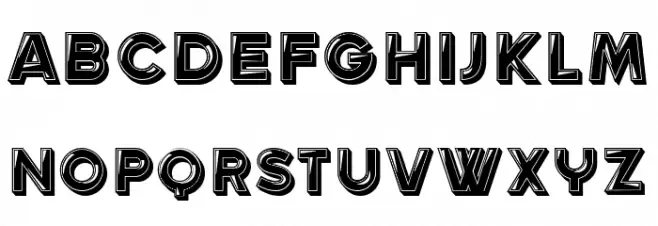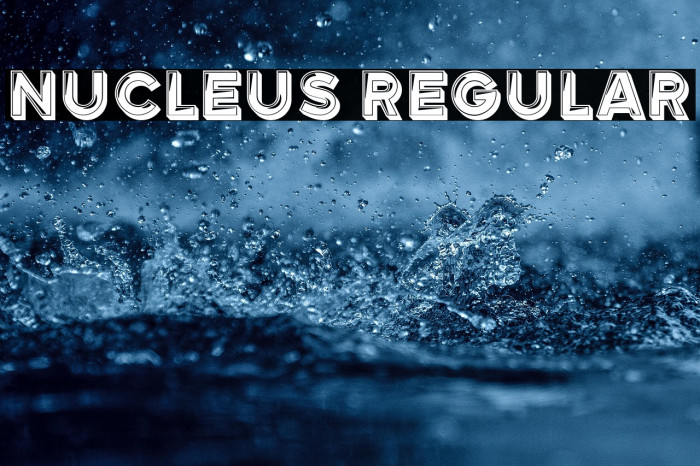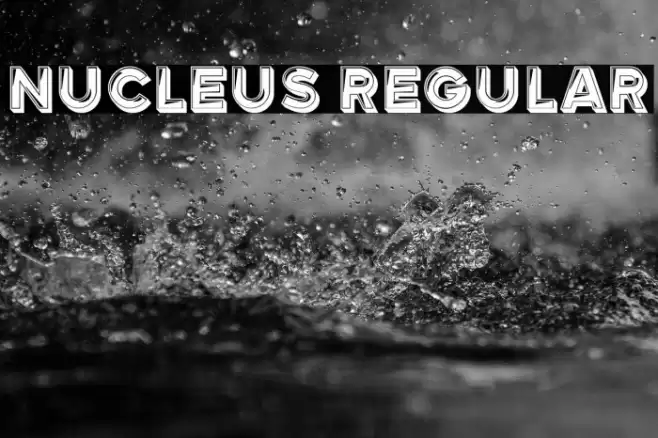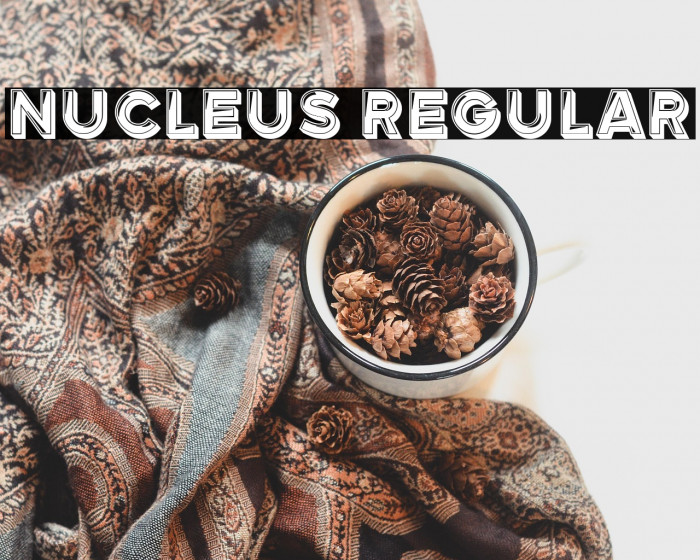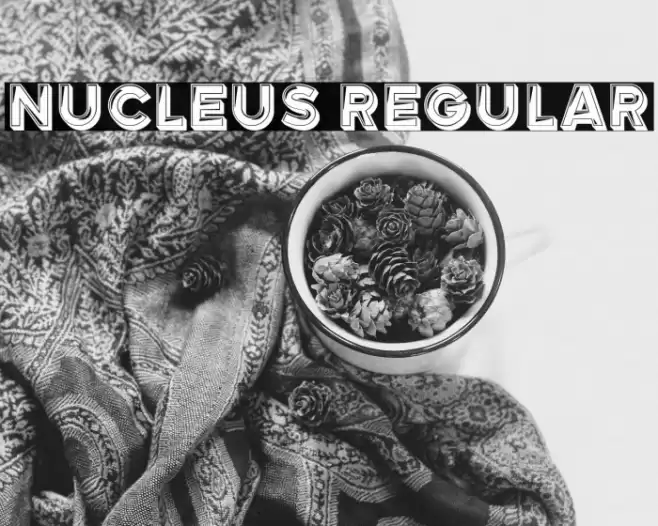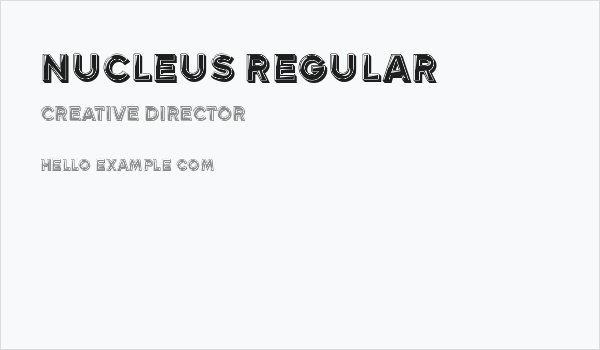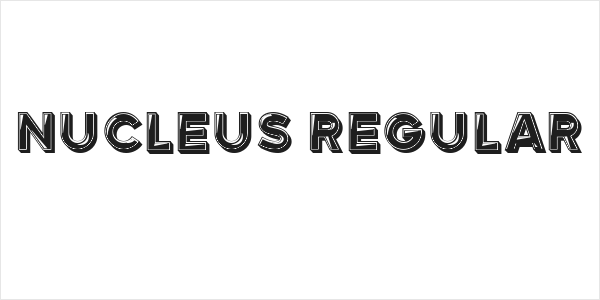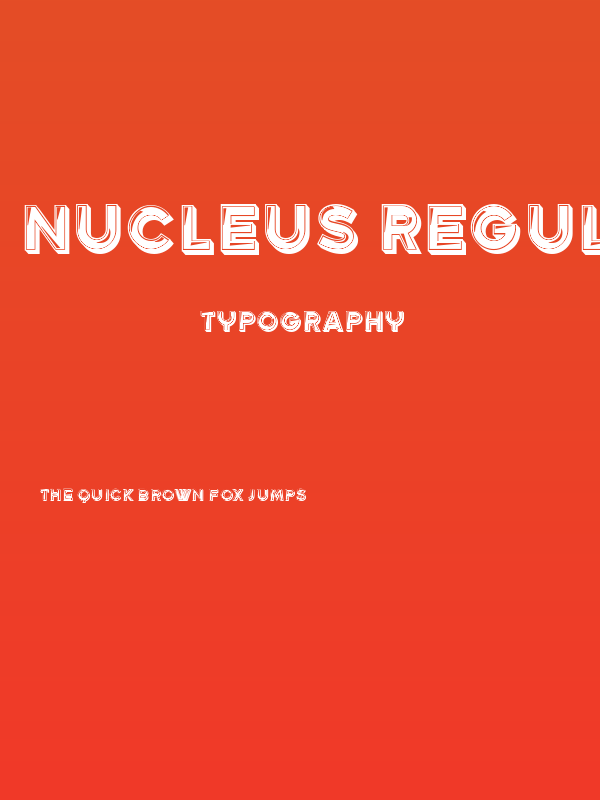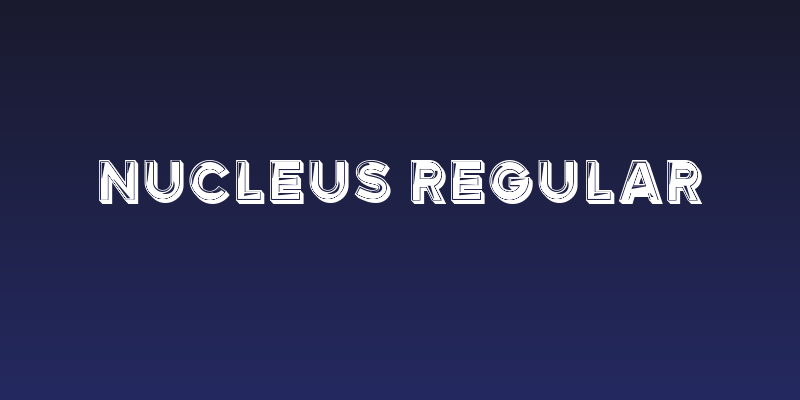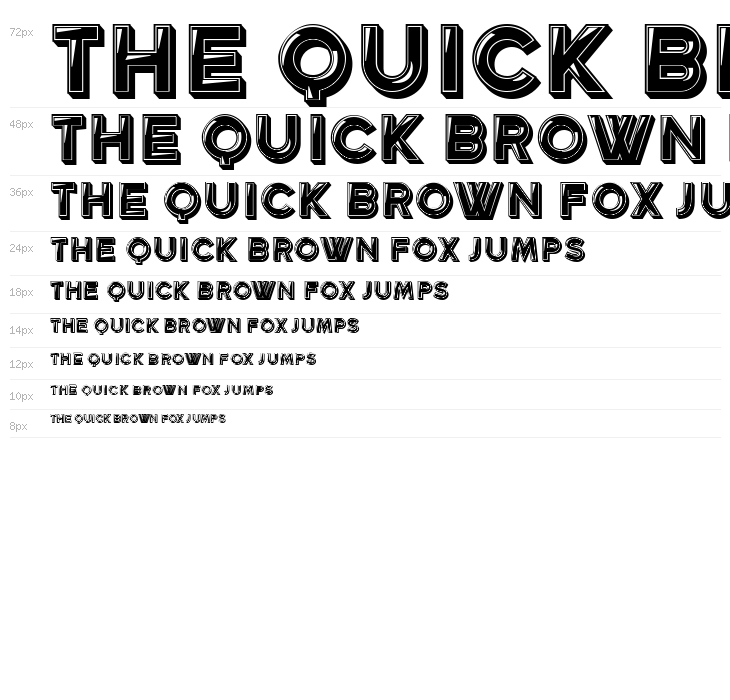
Nucleus Regular Font
Nucleus Regular Description
This font features a bold, geometric design with a distinct three-dimensional effect. The characters are outlined with a double line, creating a layered appearance that adds depth and visual interest. The uppercase letters are uniform in height, with sharp angles and clean lines that convey a sense of modernity and strength. The spacing between characters is consistent, allowing for easy readability while maintaining a striking visual impact. This font is ideal for making a statement in headlines or logos, where its unique style can be fully appreciated.
Proposed ProjectsIdeal for branding, poster design, and any project requiring a bold, modern aesthetic.